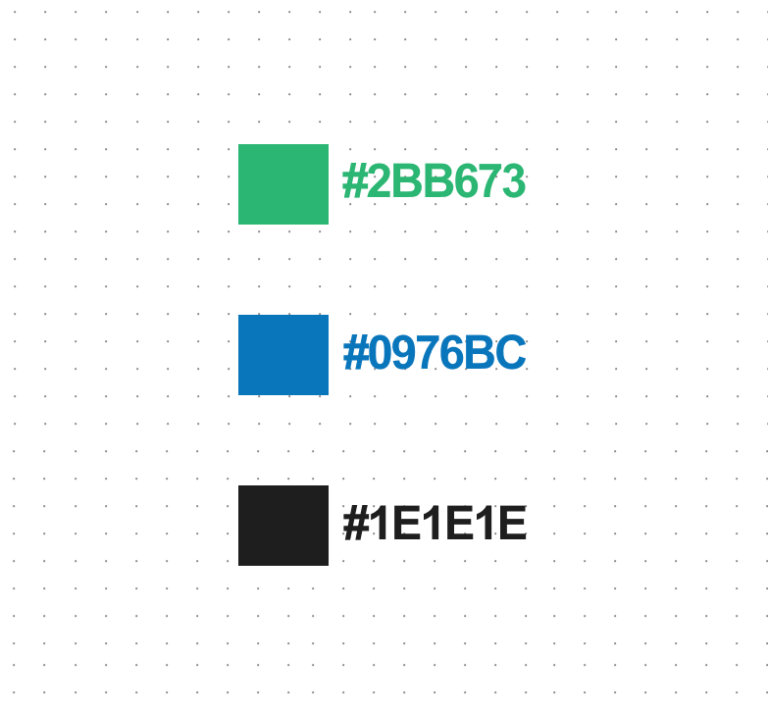
Best Font Colour For Visually Impaired . — however, there are some accepted best practices that make text more readable for people with vision. font size 16 is recommended for large print documents. If this is not practical, font size 14 is the best compromise. — accessible fonts are designed to be easier for visually impaired people to read and interpret. — explore the best fonts for accessibility in our guide, offering tips on readability, ada/wcag compliance, and making digital content inclusive. — typefaces are the foundation of accessible visual reading experiences, so choosing a performant typeface that enhances legibility and readability for people with poor vision, learning. The accessibility features of these fonts include increased letter spacing, bold outlines, higher contrast ratios, and wider characters.
— explore the best fonts for accessibility in our guide, offering tips on readability, ada/wcag compliance, and making digital content inclusive. If this is not practical, font size 14 is the best compromise. font size 16 is recommended for large print documents. — however, there are some accepted best practices that make text more readable for people with vision. — typefaces are the foundation of accessible visual reading experiences, so choosing a performant typeface that enhances legibility and readability for people with poor vision, learning. The accessibility features of these fonts include increased letter spacing, bold outlines, higher contrast ratios, and wider characters. — accessible fonts are designed to be easier for visually impaired people to read and interpret.
Best Font Colour For Visually Impaired — typefaces are the foundation of accessible visual reading experiences, so choosing a performant typeface that enhances legibility and readability for people with poor vision, learning. The accessibility features of these fonts include increased letter spacing, bold outlines, higher contrast ratios, and wider characters. — however, there are some accepted best practices that make text more readable for people with vision. — typefaces are the foundation of accessible visual reading experiences, so choosing a performant typeface that enhances legibility and readability for people with poor vision, learning. If this is not practical, font size 14 is the best compromise. font size 16 is recommended for large print documents. — accessible fonts are designed to be easier for visually impaired people to read and interpret. — explore the best fonts for accessibility in our guide, offering tips on readability, ada/wcag compliance, and making digital content inclusive.
What makes print more readable for the visually impaired? Best Font Colour For Visually Impaired The accessibility features of these fonts include increased letter spacing, bold outlines, higher contrast ratios, and wider characters. — explore the best fonts for accessibility in our guide, offering tips on readability, ada/wcag compliance, and making digital content inclusive. — typefaces are the foundation of accessible visual reading experiences, so choosing a performant typeface that enhances legibility and. Best Font Colour For Visually Impaired.
Font Psychology Here's Everything You Need to Know About Fonts Best Font Colour For Visually Impaired — accessible fonts are designed to be easier for visually impaired people to read and interpret. — explore the best fonts for accessibility in our guide, offering tips on readability, ada/wcag compliance, and making digital content inclusive. — however, there are some accepted best practices that make text more readable for people with vision. The accessibility features. Best Font Colour For Visually Impaired.
Accessible Fonts for People with Visual Impairments Best Font Colour For Visually Impaired — explore the best fonts for accessibility in our guide, offering tips on readability, ada/wcag compliance, and making digital content inclusive. If this is not practical, font size 14 is the best compromise. font size 16 is recommended for large print documents. — accessible fonts are designed to be easier for visually impaired people to read and. Best Font Colour For Visually Impaired.
11 tips for designing accessible charts for visually impaired readers Best Font Colour For Visually Impaired If this is not practical, font size 14 is the best compromise. — typefaces are the foundation of accessible visual reading experiences, so choosing a performant typeface that enhances legibility and readability for people with poor vision, learning. — however, there are some accepted best practices that make text more readable for people with vision. — explore. Best Font Colour For Visually Impaired.
Atkinson Hyperlegible Font for Visually Impaired Ballyhoo Best Font Colour For Visually Impaired font size 16 is recommended for large print documents. — accessible fonts are designed to be easier for visually impaired people to read and interpret. — explore the best fonts for accessibility in our guide, offering tips on readability, ada/wcag compliance, and making digital content inclusive. If this is not practical, font size 14 is the best. Best Font Colour For Visually Impaired.
Research on ID fonts for the visually impaired (amblyopia) and the Best Font Colour For Visually Impaired — accessible fonts are designed to be easier for visually impaired people to read and interpret. — however, there are some accepted best practices that make text more readable for people with vision. font size 16 is recommended for large print documents. If this is not practical, font size 14 is the best compromise. — explore. Best Font Colour For Visually Impaired.
Designing for the visually impaired Best Font Colour For Visually Impaired — typefaces are the foundation of accessible visual reading experiences, so choosing a performant typeface that enhances legibility and readability for people with poor vision, learning. — accessible fonts are designed to be easier for visually impaired people to read and interpret. If this is not practical, font size 14 is the best compromise. — however, there. Best Font Colour For Visually Impaired.
Fontscape Home > Application > Disabilities > Visually impaired Best Font Colour For Visually Impaired If this is not practical, font size 14 is the best compromise. — accessible fonts are designed to be easier for visually impaired people to read and interpret. The accessibility features of these fonts include increased letter spacing, bold outlines, higher contrast ratios, and wider characters. — explore the best fonts for accessibility in our guide, offering tips. Best Font Colour For Visually Impaired.